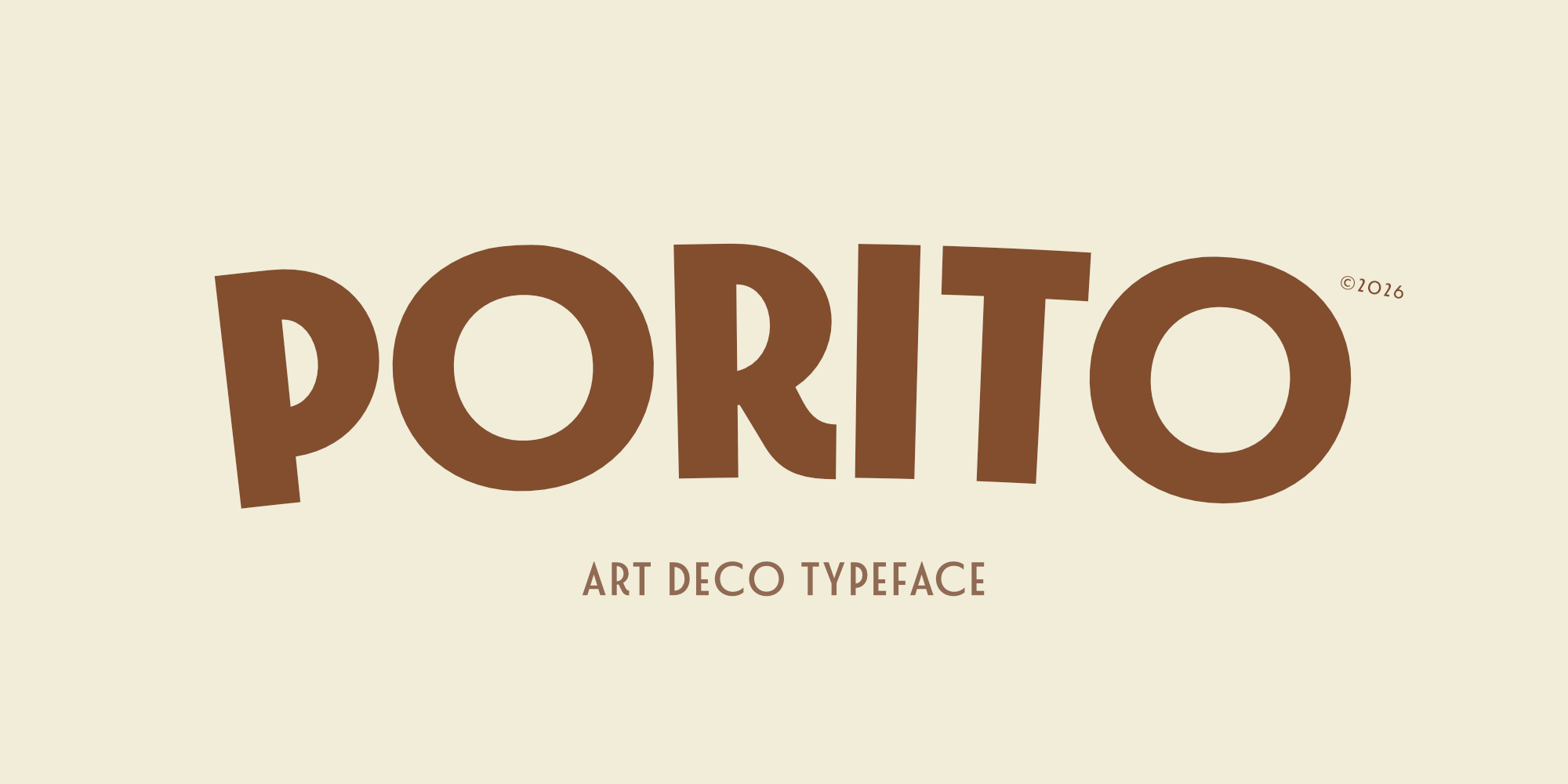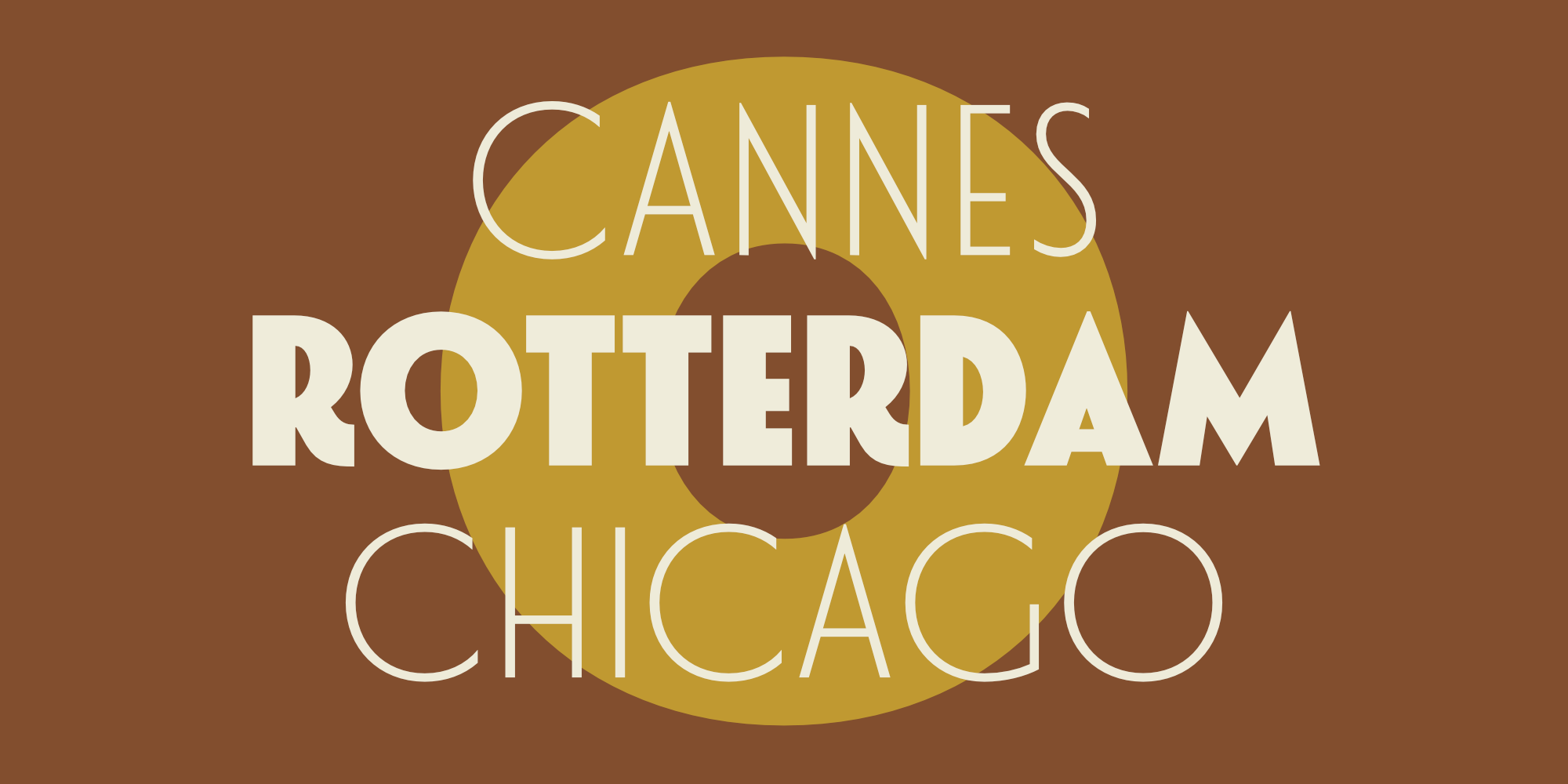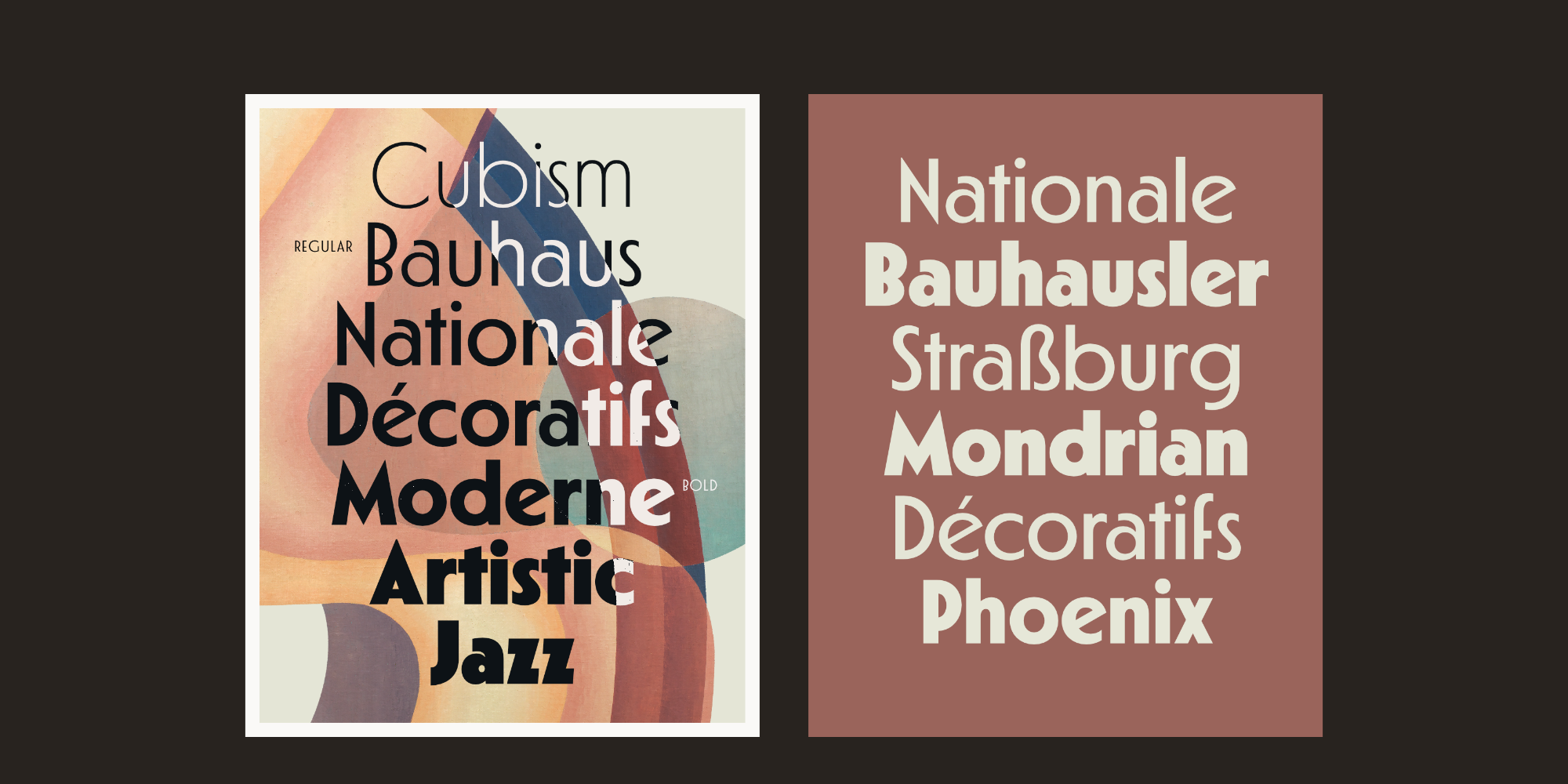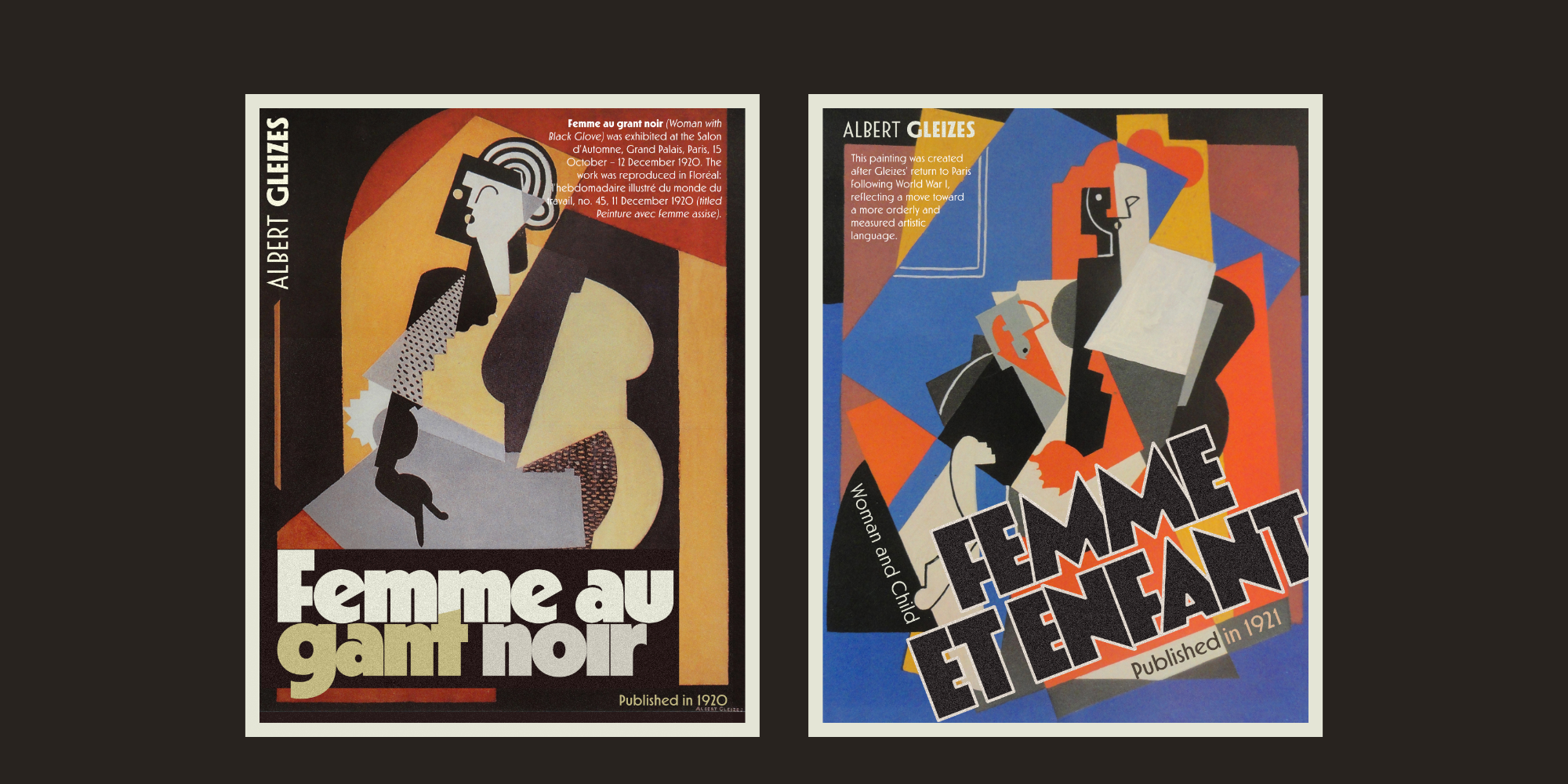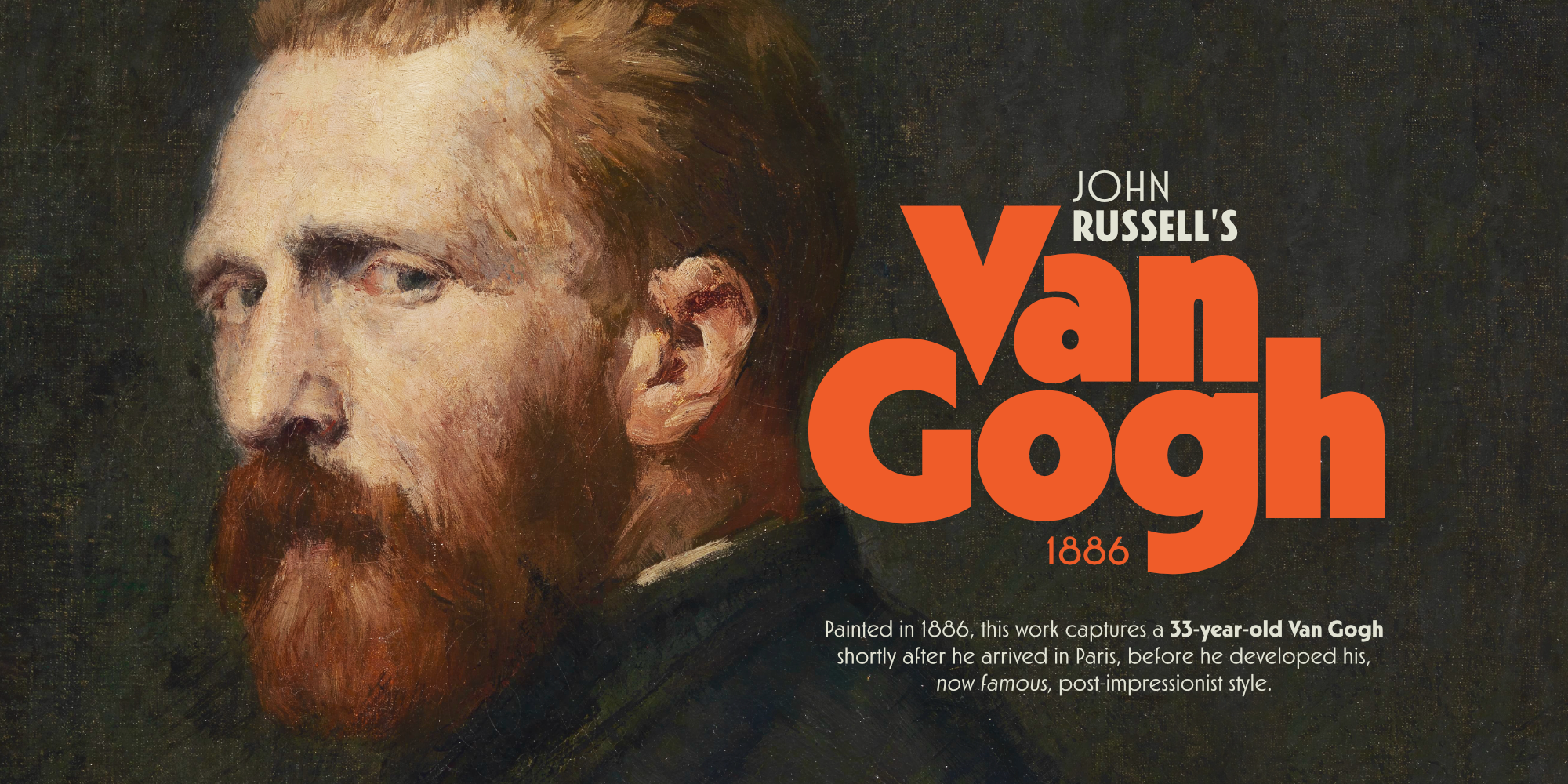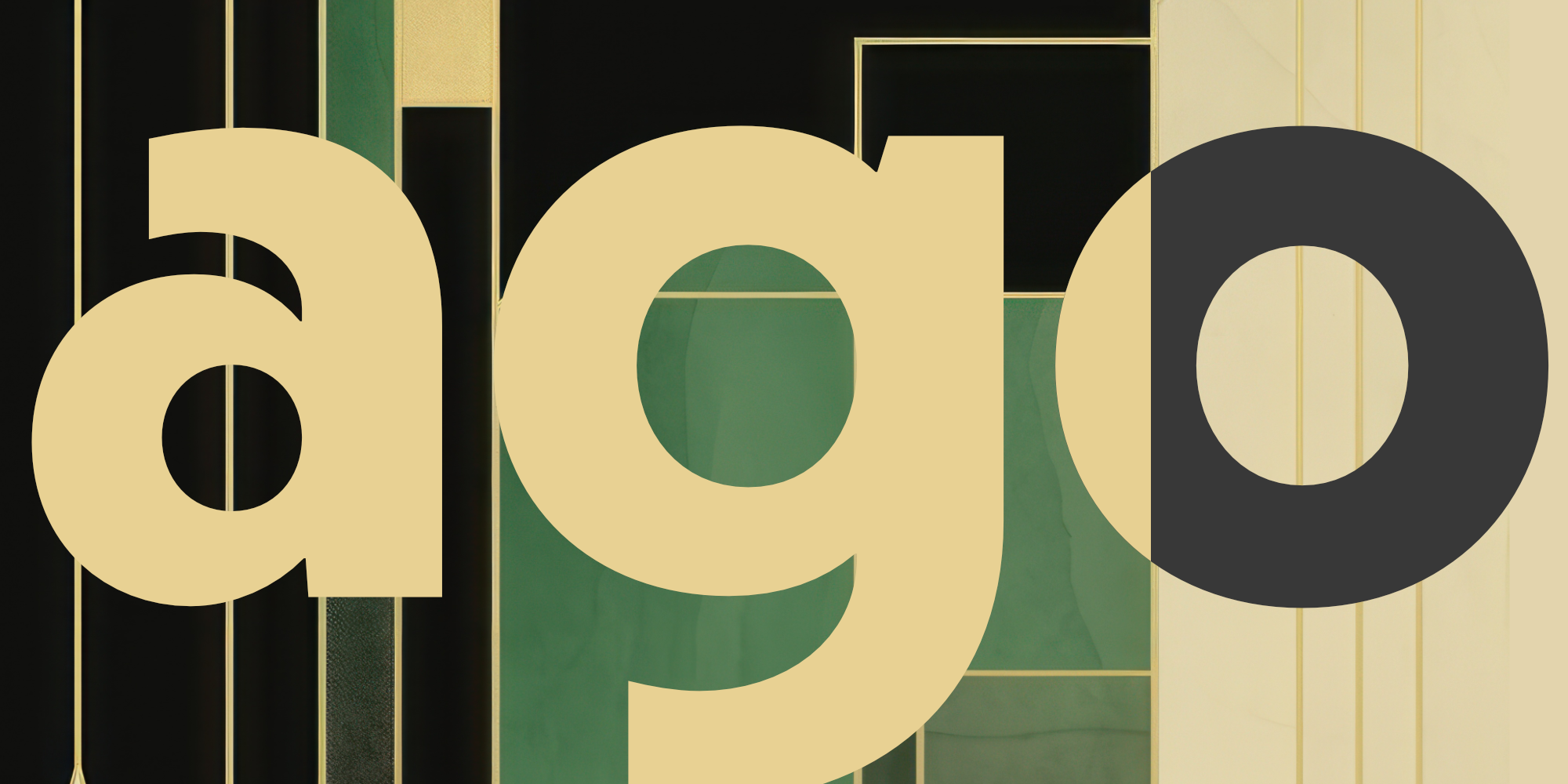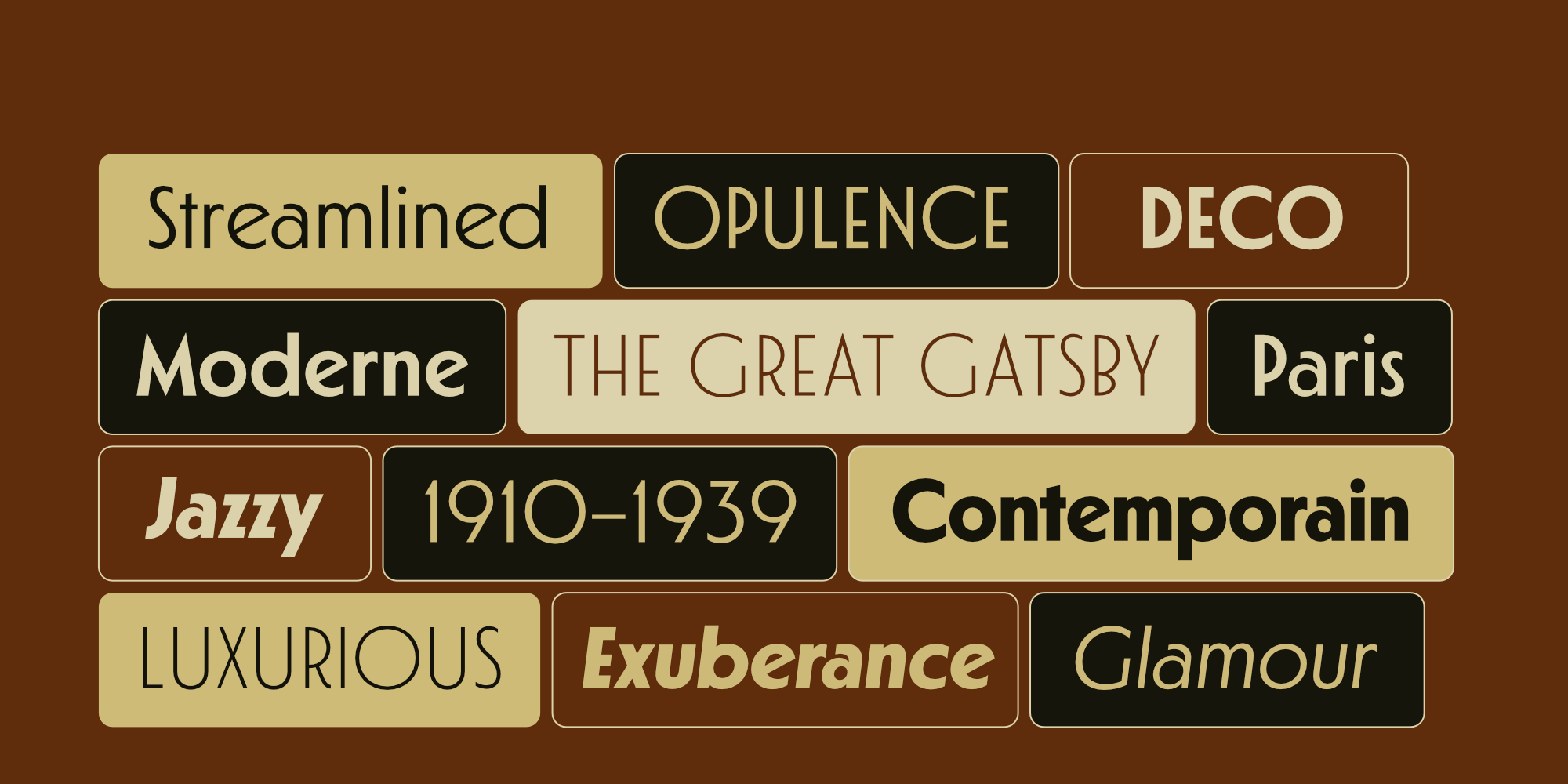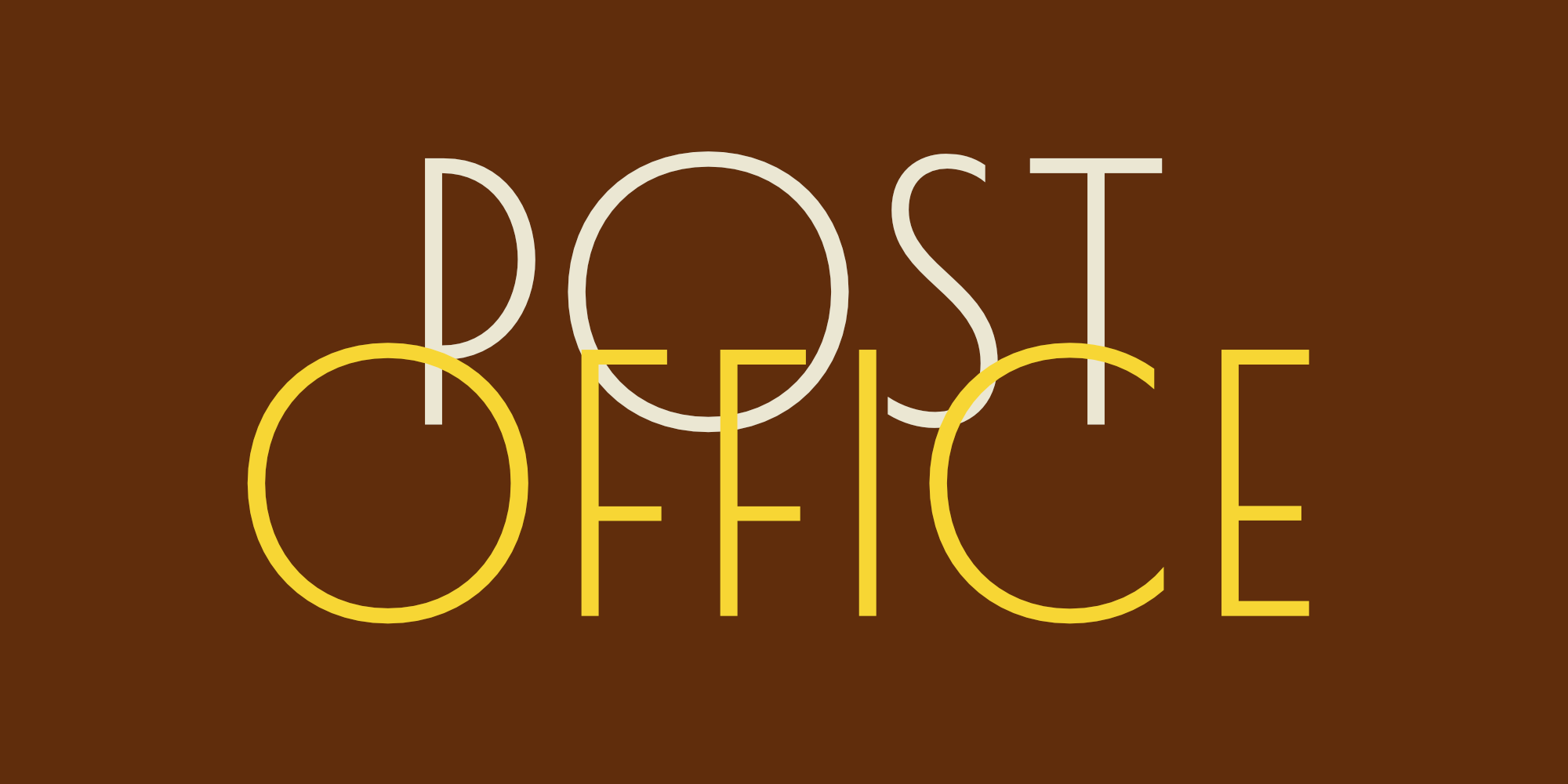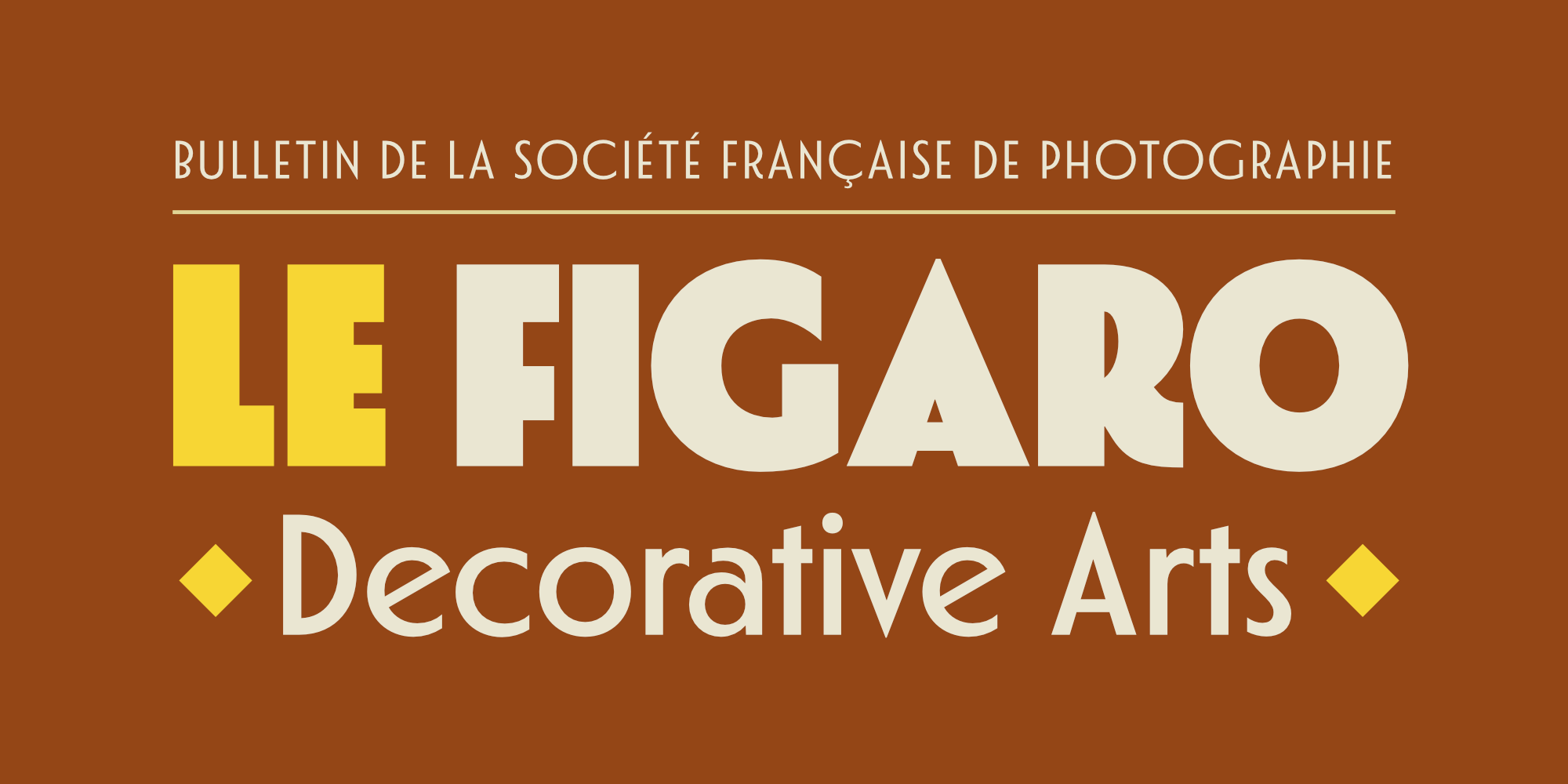
Porito is an art deco-inspired type family featuring 14 distinct fonts. This family is characterized by simple, straight geometric forms and dynamic proportions, giving it a modernized retro aesthetic.
Porito’s versatility makes it suitable for a wide range of design projects, including branding, posters, magazines, and product packaging. Furthermore, with an extended Latin character set, Porito supports over 200 Latin-based languages, ensuring its broad applicability across diverse themes and styles.